Top 20+Perfect Logo Fonts For Branding Design 2023
20+Perfect Logo Fonts For Branding Design 2023. How to choose the most suitable font for logo and brand design? Font choice is a critical element of logo design. By changing your logo font, you can completely change your brand’s mood and message. Your font even has the power to influence your customer’s thoughts and emotions! However, there are many fonts that you can select from. So, how do you know you’ve found the right one for your brand? In this article, we present 20+ popular logo fonts for your branding design that will make an impact in 2023.
Leafy Logo Font
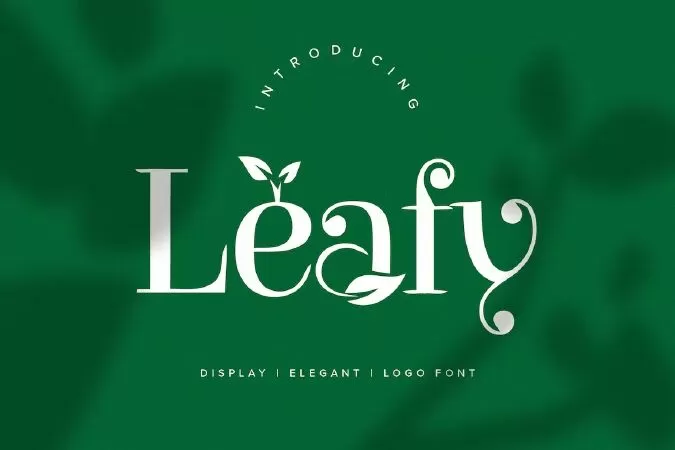
Leafy Logo Font
Leafy is a logo display font created with environmental theme in mind. It features a unique style and will add a friendly feel to your upcoming projects. Get inspired by its authentic feel and use it to create beautiful poster, product packaging or logo and many more!
Retro Logo Font
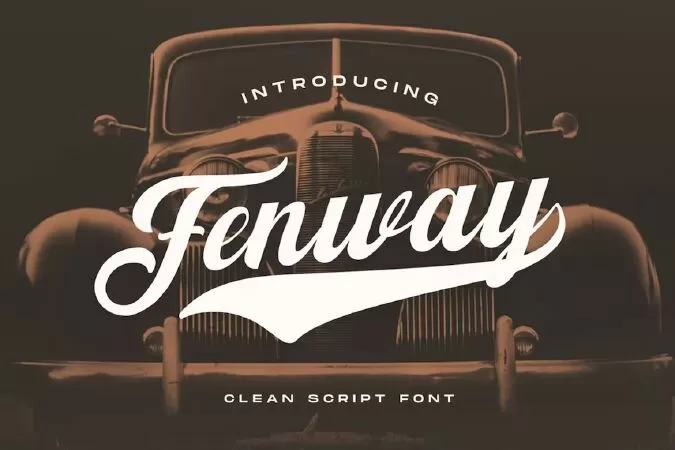
Fenway
Are you ready to delve into the rich depths of history? Are you ready to make your branding bold? Are you looking for a statement font that exudes prominence, style, and adventure?
Introducing Fenway - A Clean Script Font.
This clean script font can be used for a host of different content needs and projects. Use it to make your headings stand out, enhance your logos, style up your business cards, elevate your website and social media, and bring class, style, and history across all your channels.
Get ready to captivate, engage, and inspire your audience and clients with Fenway.
Serbie - Logo Font
Serbie is a sans based font with unique lowercase that will make your design looks futuristic and modern. You can use this font for any purpose, especially to make logotype.
Archattes - Logo Font
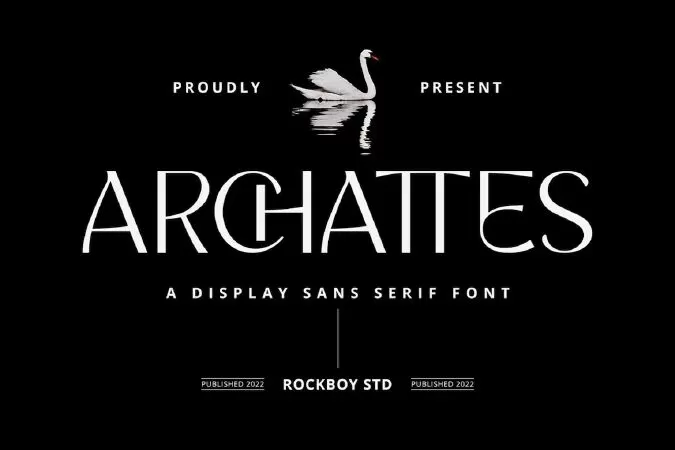
Archattes is an elegant and beautiful sans serif font. It will elevate a wide range of crafting ideas, from cards to branding, labels, and many more. Add it to any of your creative projects, and make them look extraordinary!
Duffish - Logo Font
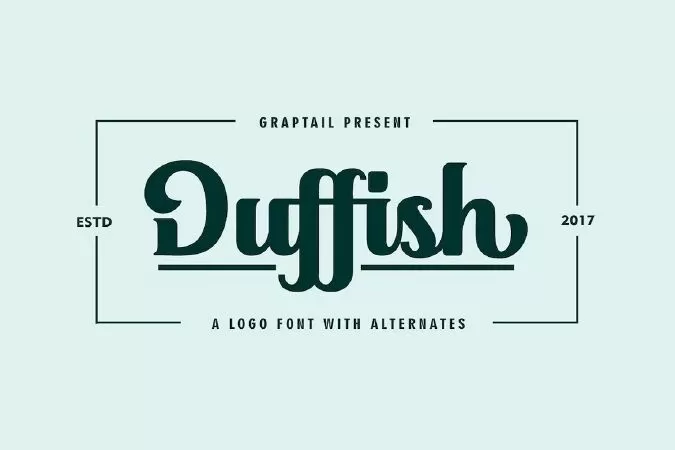
Duffish is the shape of the letter script bold. This font is inspired by the logotype form of companies that showcase the beauty of every letter form.
Duffish come with a variety of alternates that can be combined to produce a form of liking such as logos, fashion, Product, Packing, Website, apparel, stationery, magazines, film, books and marketing.